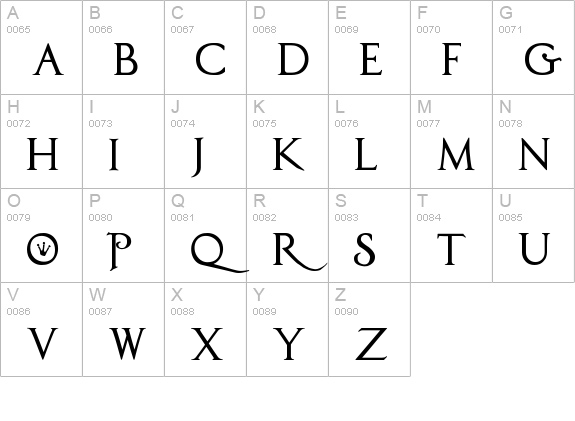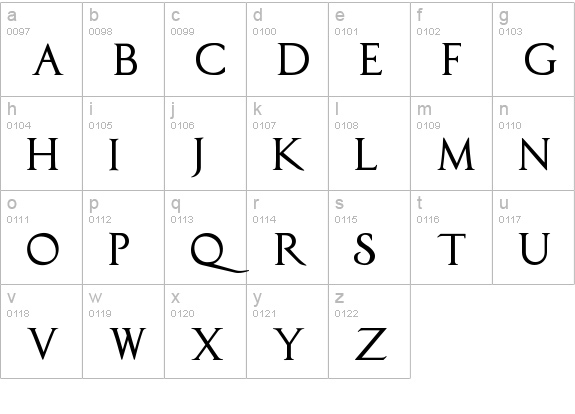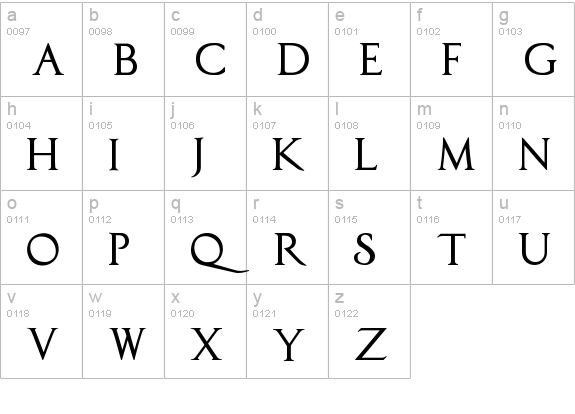
Introducing the enchanting PrincesS AND THE FROG font, a whimsical typeface that brings fairy tales to life with its elegant curves and playful demeanor. Inspired by the classic tale of a princess and her magical journey, this font encapsulates the essence of love, transformation, and happily ever afters. With its delicate and intricate letterforms, PrincesS AND THE FROG font beautifully captures the essence of a fairytale world, making it the perfect choice for any design project that seeks to evoke a sense of wonder and enchantment. Whether used for invitations, greeting cards, book covers, or branding materials, this font will transport your audience into a realm where dreams come true. What makes PrincesS AND THE FROG font even more magical is that it is freely available to download at FontsMarket.com. This means that you can easily bring a touch of fairy dust to your designs without breaking the bank. Just imagine the possibilities as you explore the endless creative opportunities this font offers. Designed with versatility in mind, PrincesS AND THE FROG font comes in a range of weights and styles, allowing you to experiment and create unique compositions that suit your vision. Its smooth and flowing lines add a touch of elegance, while the subtle details bring a sense of whimsy and charm to every letter. Whether you're designing for a children's book, a wedding invitation, or a fantasy-themed project, PrincesS AND THE FROG font will effortlessly captivate hearts and minds. So let your imagination take flight and download this enchanting font today, completely free at FontsMarket.com. Prepare to embark on a typographic adventure that will transport your designs to a world of magic and wonder.